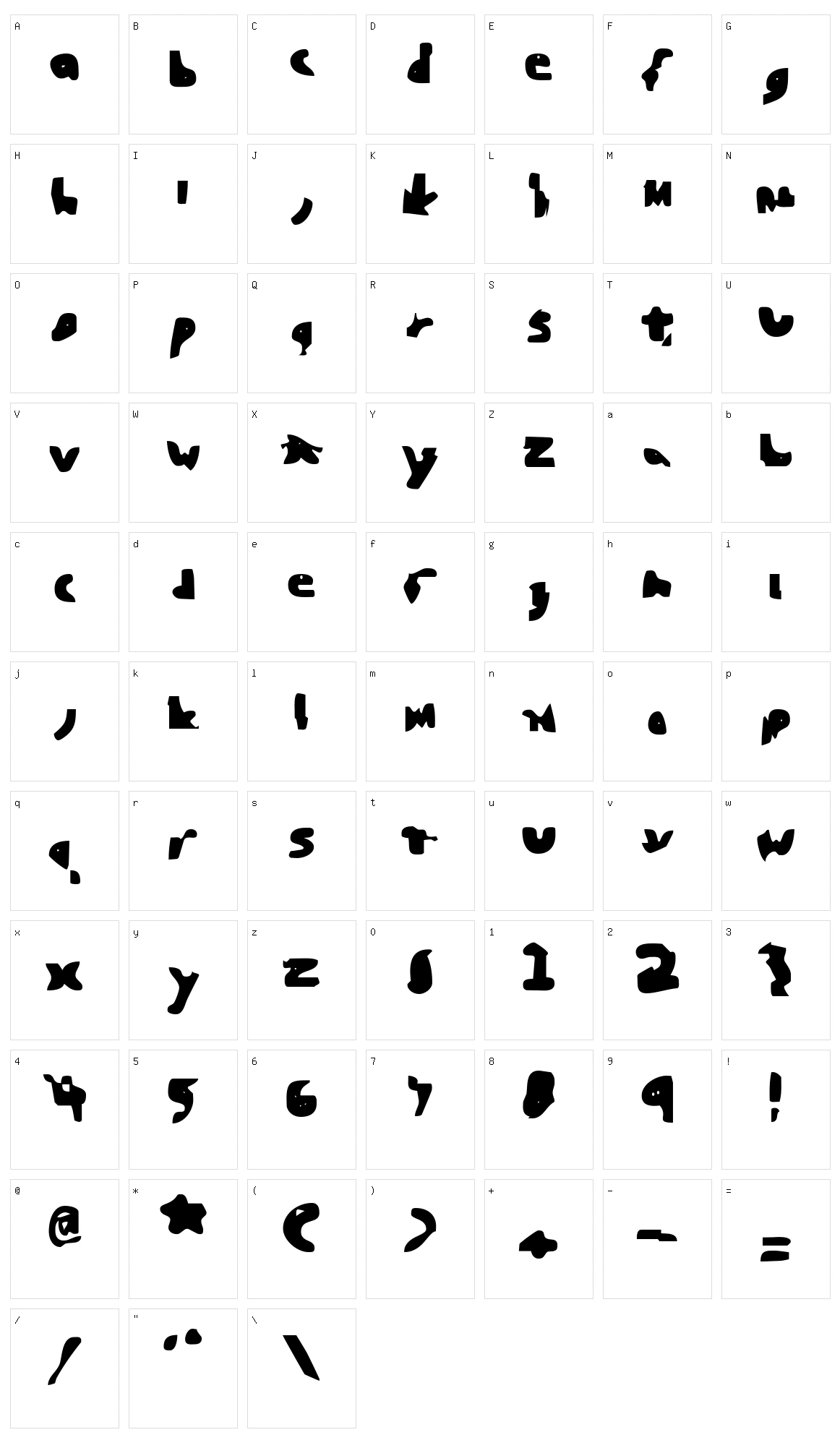
this is the bionictype inDistress font package.
the included fonts are just a few of my previous fonts, but they have
been run through filters rendering them almost unreadable! yay!
enjoy them and if you find any use for them, then you might have some sort of
problem. i mean, to actually USE these fonts? it's almost unthinkable...